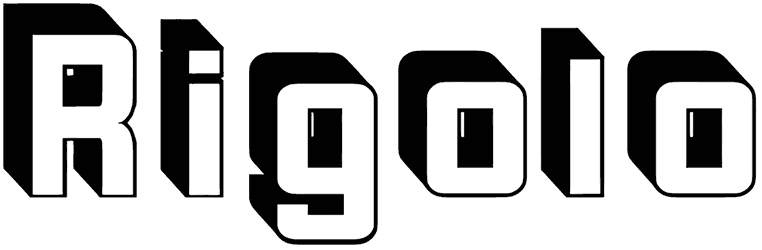
Rigolo Font
Rigolo is like a game of light and dark that gives depth and dimension to any design. With its bold lines and dramatic background, this shadow font creates a powerful visual impact that will attract the eye. Whether it’s…
Rigolo is like a game of light and dark that gives depth and dimension to any design. With its bold lines and dramatic background, this shadow font creates a powerful visual impact that will attract the eye.
Whether it’s a movie poster, a book cover, or a sports team logo, this 3D font offers a way to make your design stand out. Its 3D appearance adds a sense of realism and texture and creates a dynamic that is impossible to ignore.